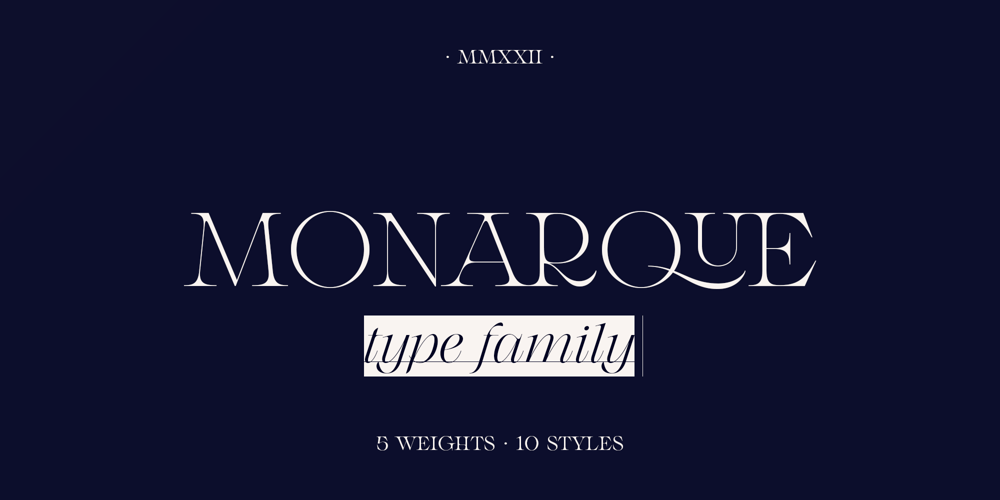
Monarque
Monarque font
Monarque Font Family was designed by Jessika Granell and published by The Paper Town. Monarque contains 10 styles and family package options. Monarque is an elegant typeface.It is crafted with fine details that would make your typography stand out.Large x-height, high stroke contrast, rounded curves & long sharp serifs create together a dramatic look that would succeed in delivering a strong message with elegance.The true italic’s are designed to work harmoniously with the roman for a striking contrast within a line.Originally created to be an all-caps only, the font includes a lot of uppercase ligatures that are thought to flow in naturally and achieve a legible composition. OpenType features include a stylistic set of alternates, contextual alternates, discretionary and standard ligatures, old style figures, small caps and case-sensitive forms.The type family is available in 5 weights for a total of 10 fonts and supports over 200 Latin-based languages, making Monarque a solid powerful typeface ready for any kind of project from editorial design, branding, magazines, logos and more.As Monarque is only available as a display (for now) its full potential operates at its best with headlines or short to medium-length texts.